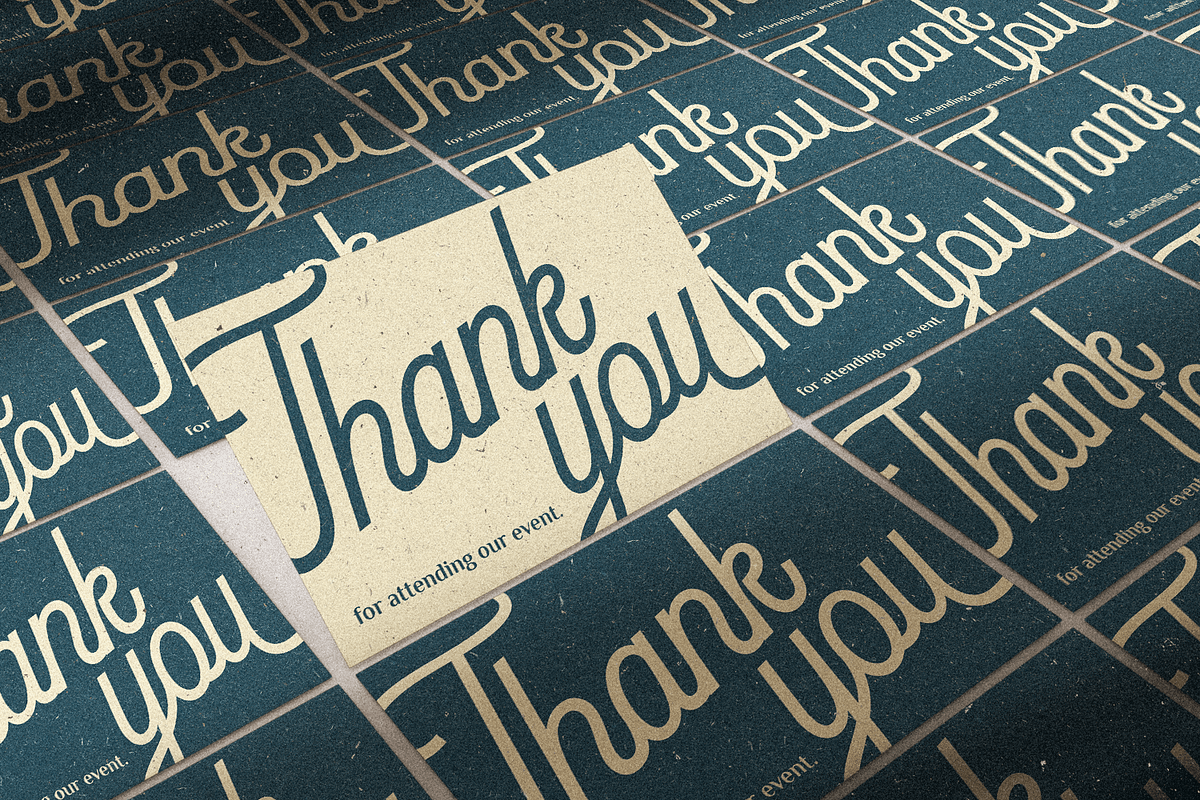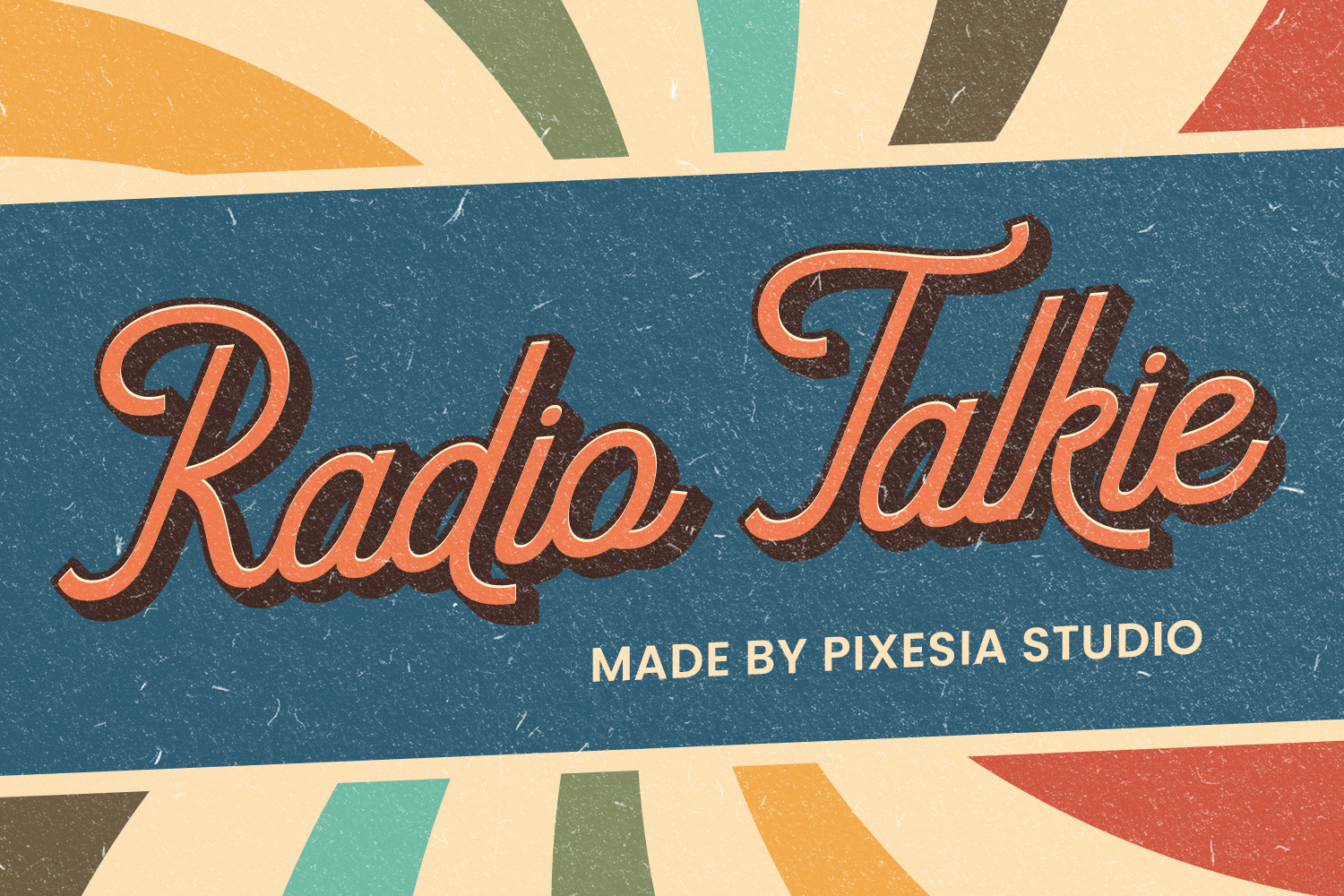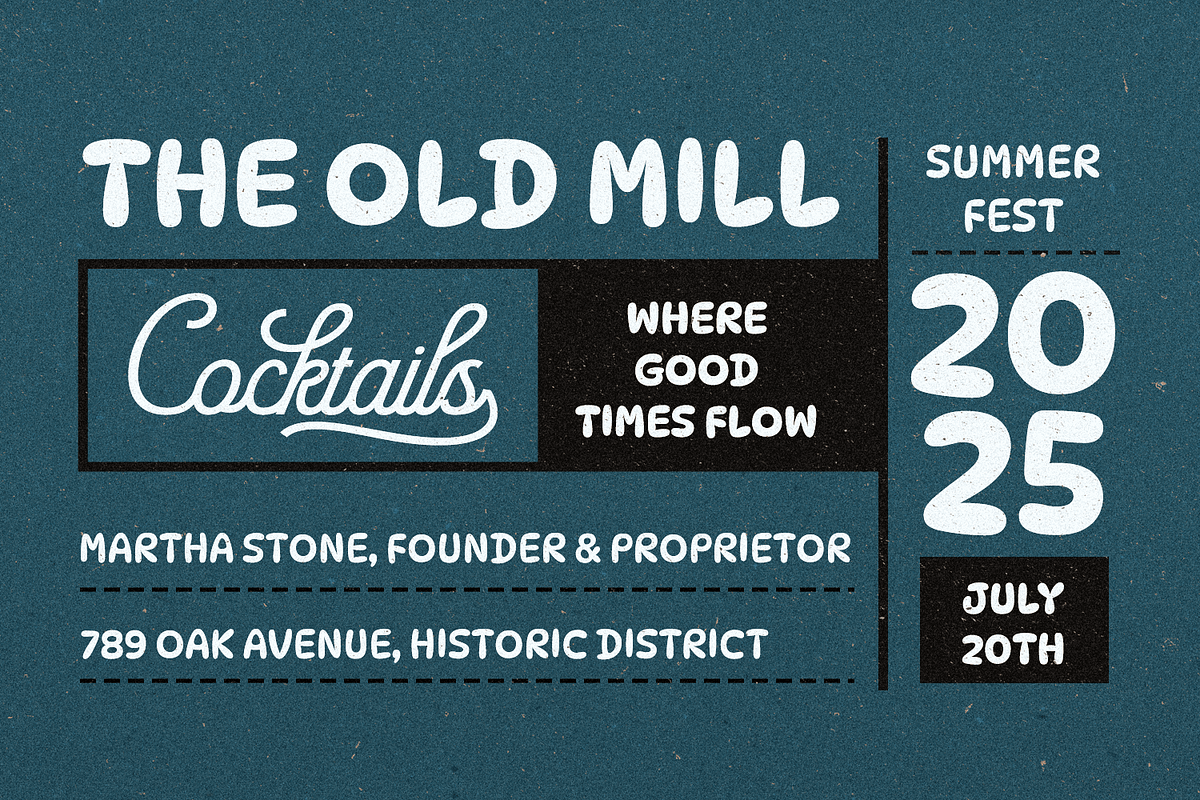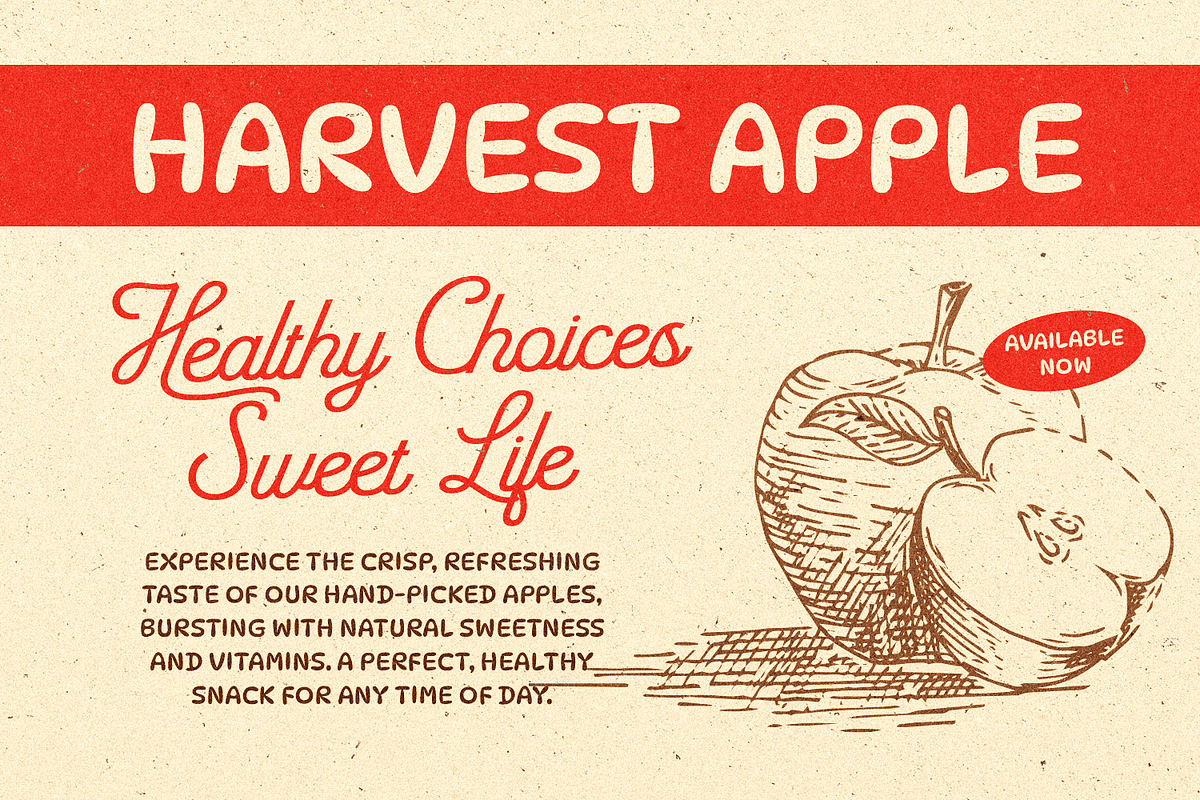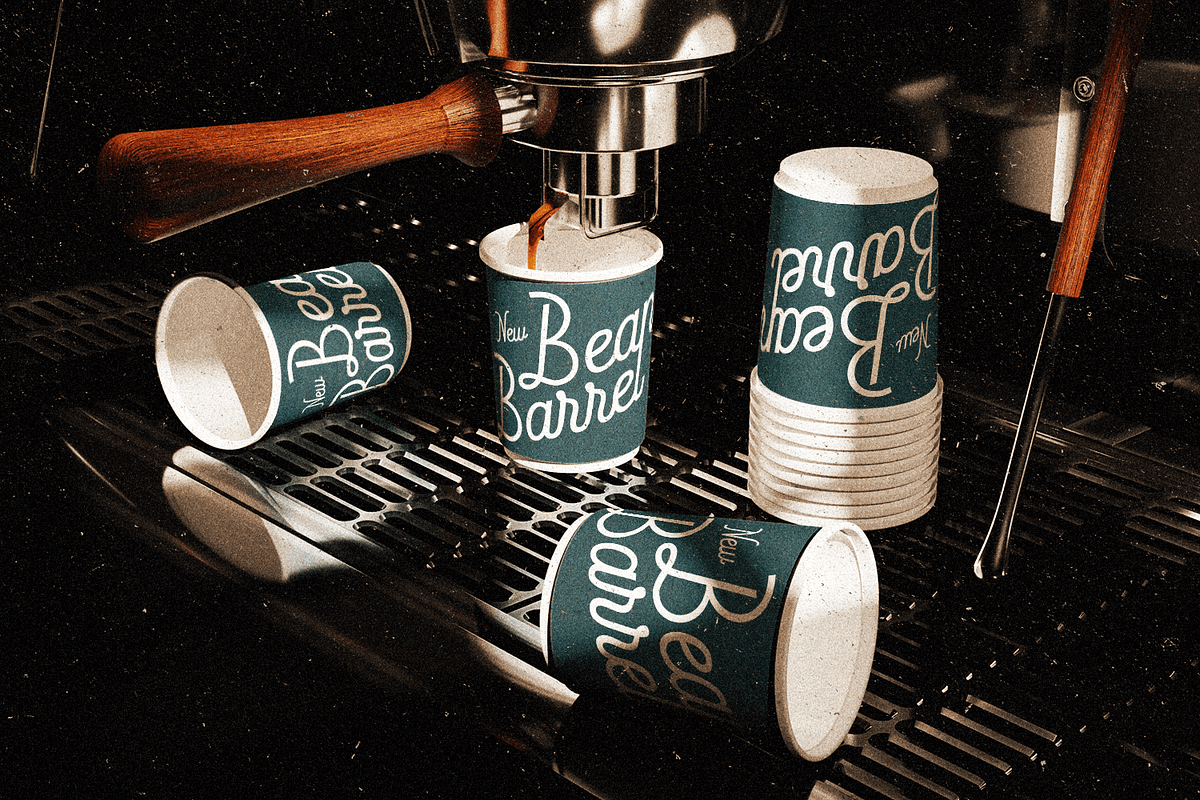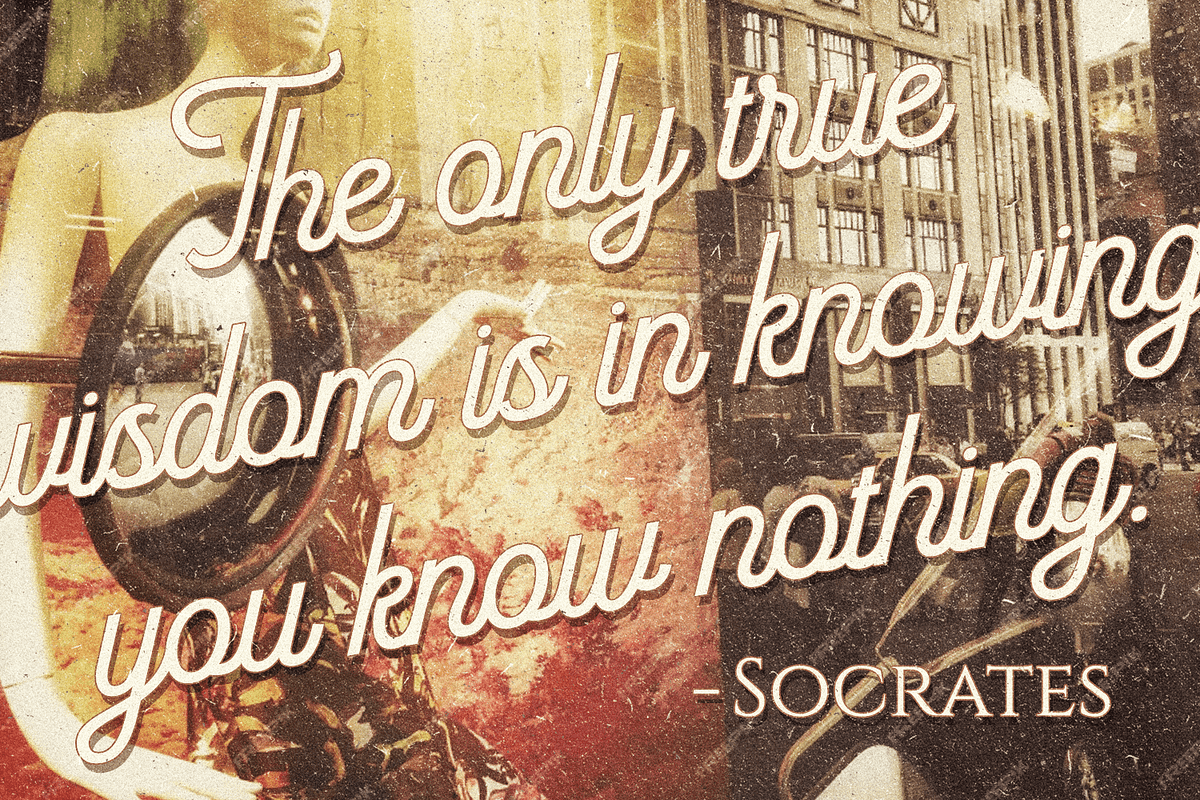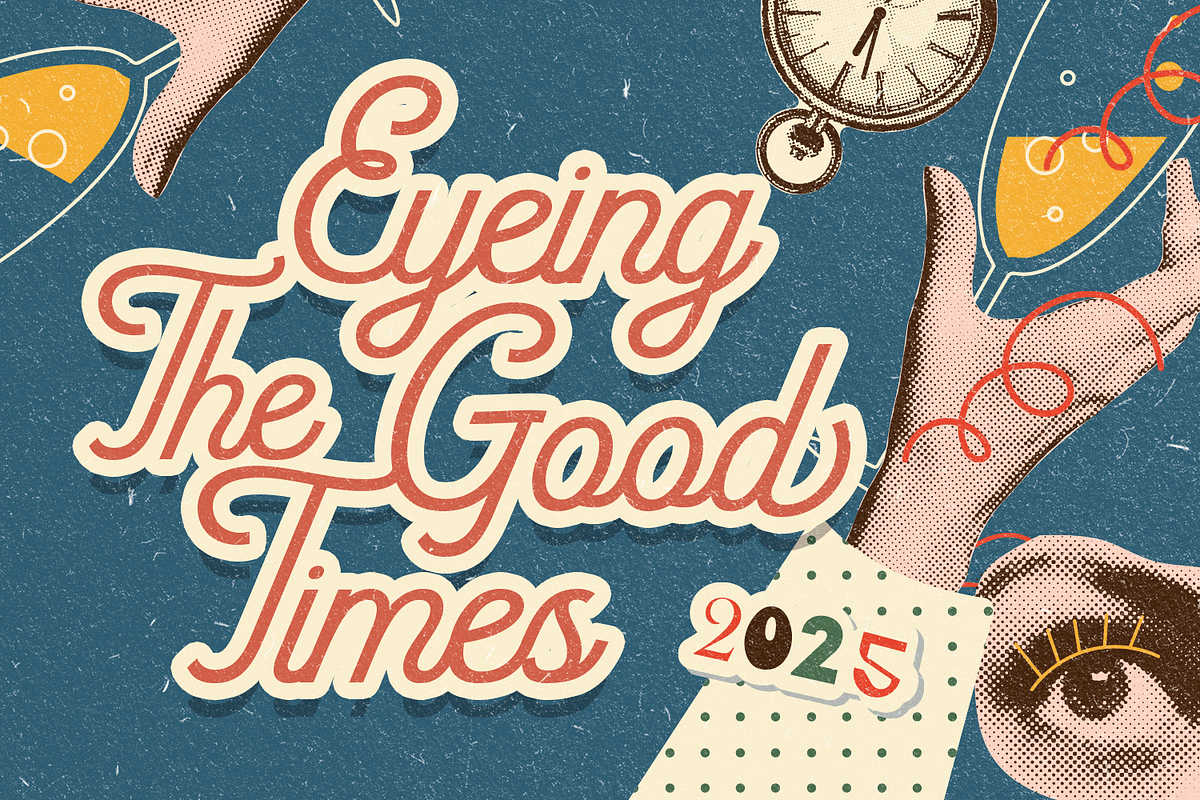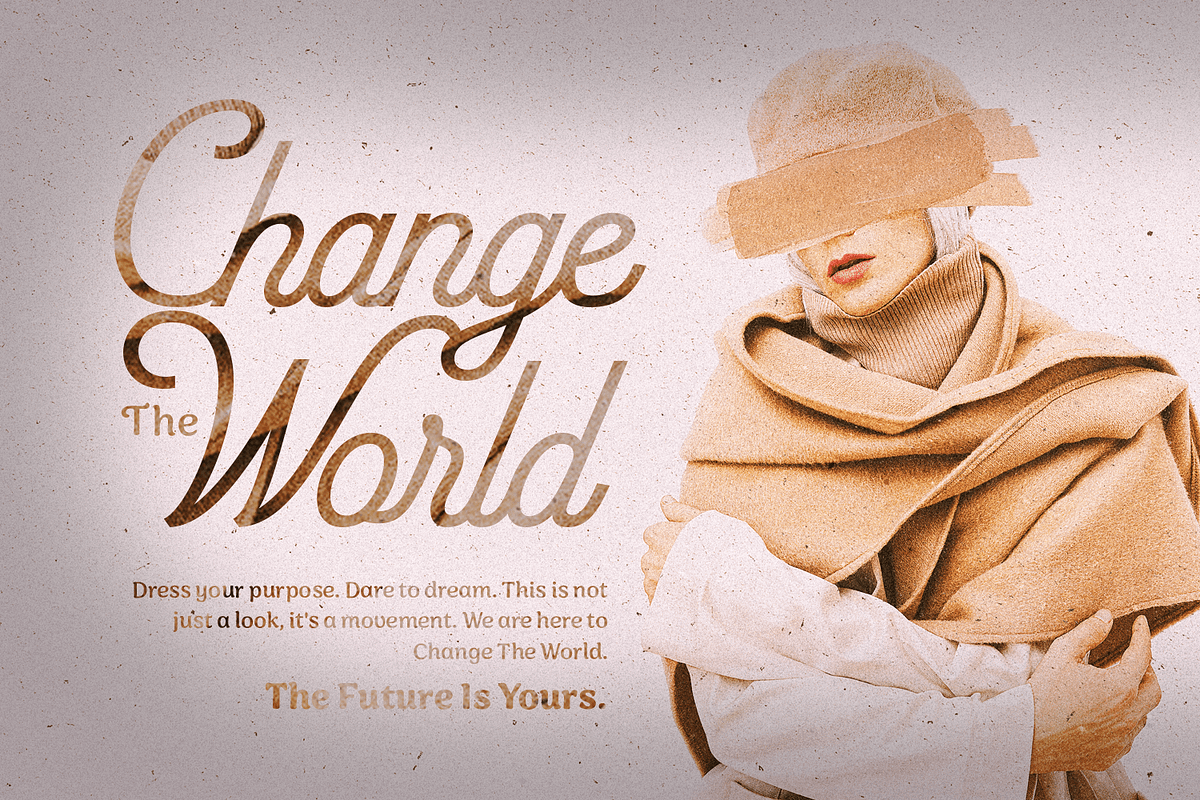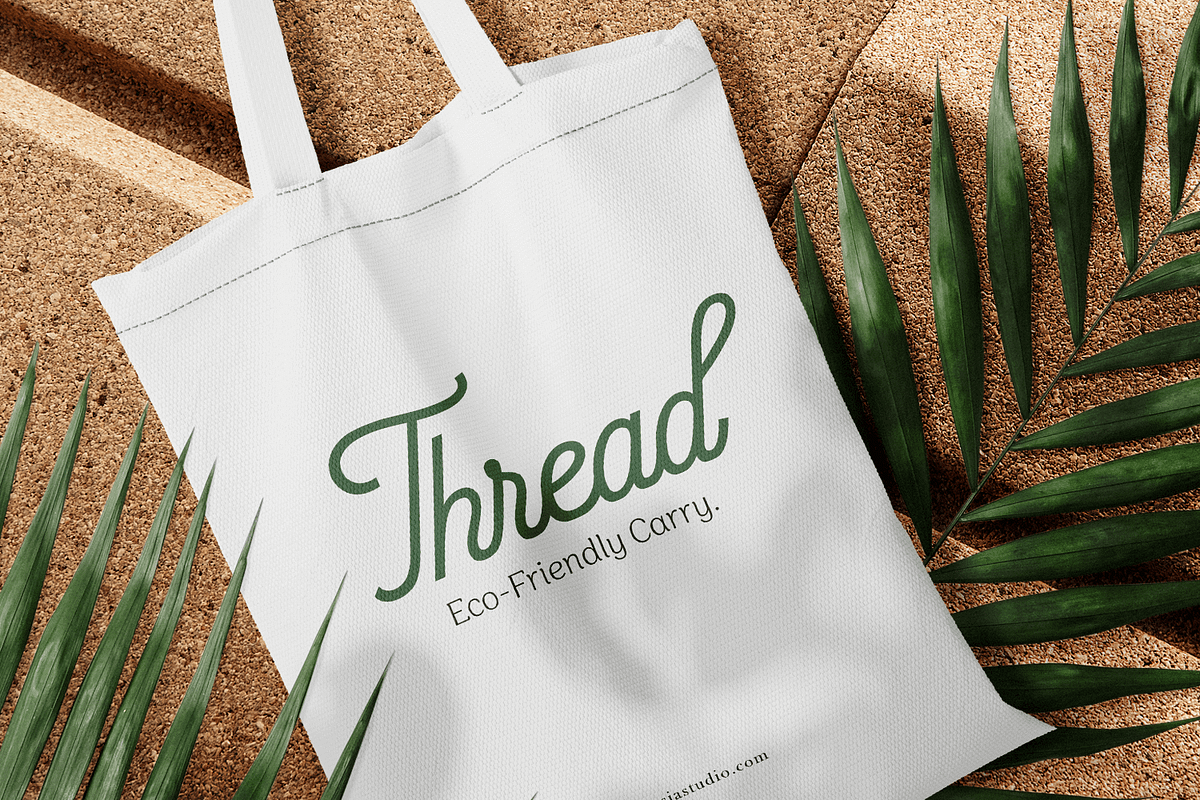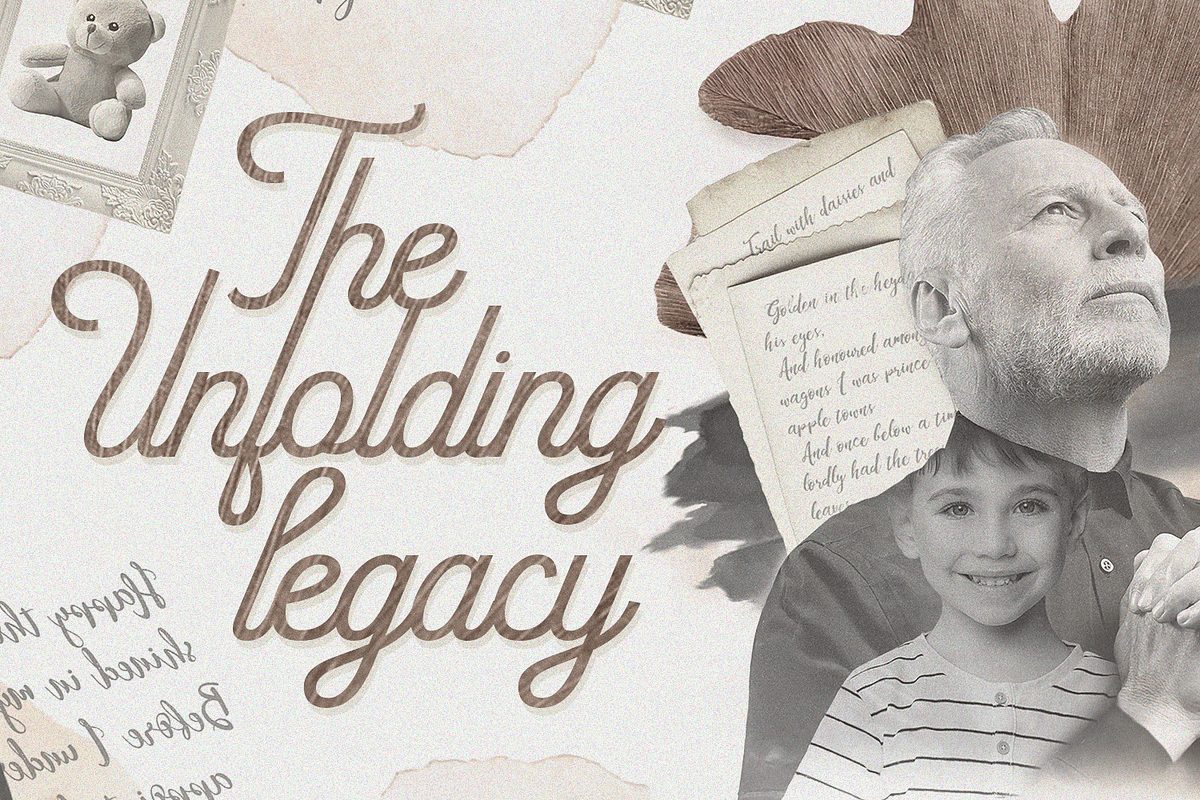
Radio Talkie – Vintage Script Font
Introducing Radio Talkie – Vintage Script Font
Radio Talkie is a bold and nostalgic script font that channels the retro spirit of the golden radio era. With curvy, playful strokes and a warm vintage texture, it evokes the charm of classic signage and hand-painted lettering. Its stylish personality makes every design feel cheerful, authentic, and full of life.
Radio Talkie is ideal for branding, logotypes, retro posters, packaging, vintage product designs, social media graphics, labels, t-shirts, signage, and any project that needs a fun throwback vibe with a modern twist.